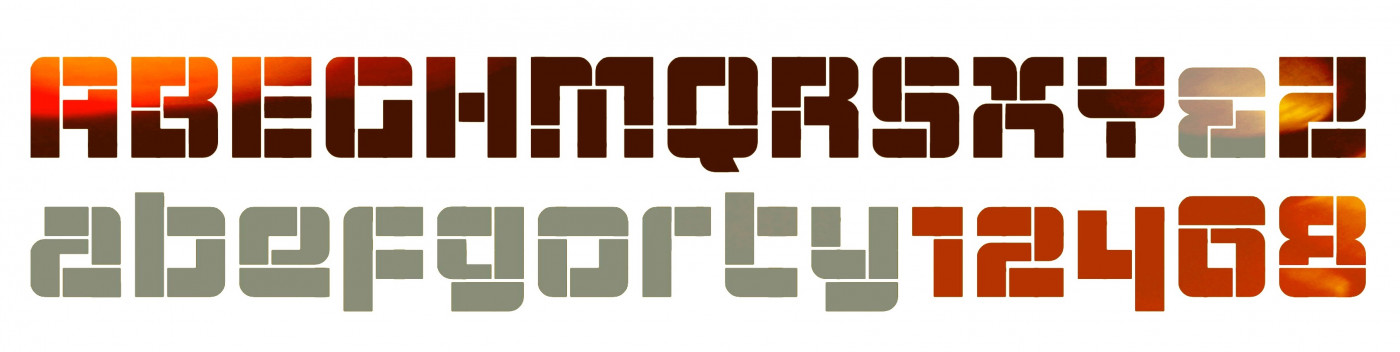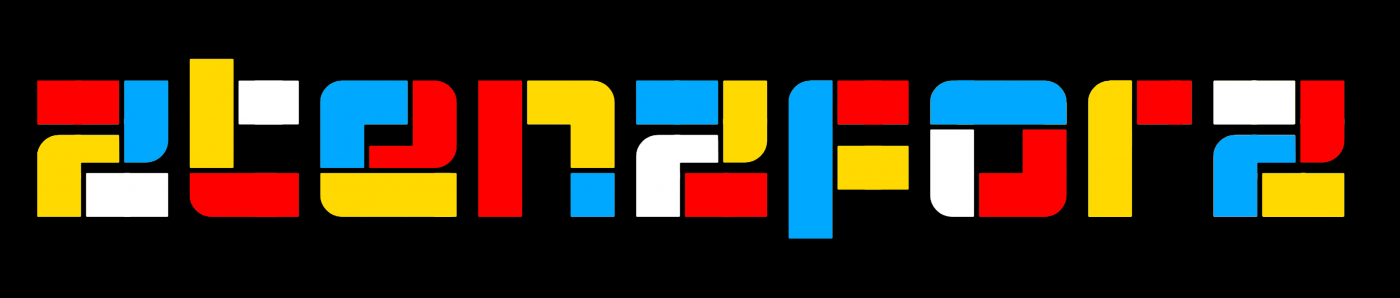
I was looking to make a rocky font, playing with few bricks but it was complicating minute to minute... I've been very busy lately, and this was (taken it bit by bit) an easy way to unwind. Hope you like it.
Excellent work as always, love the solution for the "k"
10/10 I like how the numbers turned out!